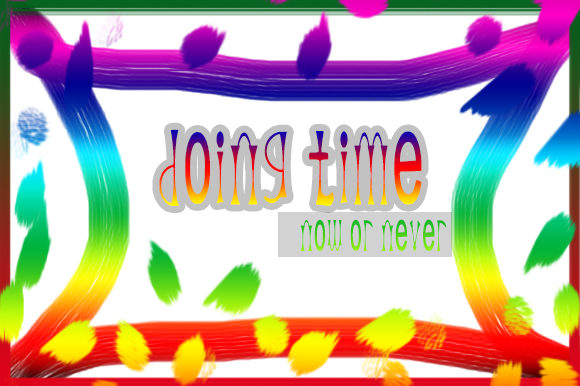
Let’s get funky! Groovy Font: Bringing Back the Iconic Style of the 70s!
Are you ready to add a dash of retro flair to your designs? Look no further than the Groovy Font! This fun and funky typeface is a blast from the past, transporting us back to the iconic style of the 1970s. In this article, we’ll dive into the world of Groovy Font, exploring its history, characteristics, and uses. Whether you’re a designer, crafter, or simply a fan of retro aesthetics, you’ll love the vibe of this far-out font.
A Brief History of Groovy Font
The Groovy Font is a modern interpretation of the classic typography of the 1970s. During this era, fonts were bold, colorful, and playful, reflecting the era’s carefree and experimental spirit. The Groovy Font pays homage to this iconic style, with its chunky letters, curvaceous lines, and funky flair.
Designers and typographers of the 1970s were known for pushing the boundaries of typography, experimenting with new shapes, colors, and textures. The result was a distinctive look that defined the era’s visual identity. The Groovy Font captures the essence of this creative explosion, bringing it back to life for a new generation of designers and crafters.
Characteristics of Groovy Font
So, what makes the Groovy Font so groovy? Here are some of its key characteristics:
- Bold and chunky letters: Groovy Font features thick, sturdy letters that demand attention.
- Curvaceous lines: The font’s lines are smooth and curvy, adding a touch of playfulness to any design.
- Funky flair: Groovy Font includes funky swashes and tails that add a dash of whimsy to your text.
- Retro color schemes: The font looks best with bright, bold colors that evoke the spirit of the 1970s.
Uses of Groovy Font
Groovy Font is perfect for designers and crafters who want to add a retro touch to their work. Here are some ideas to get you started:
- Poster design: Use Groovy Font to create eye-catching posters for concerts, festivals, or parties.
- Social media graphics: Add a dash of retro flair to your social media posts with Groovy Font.
- Crafting projects: Use Groovy Font to create fun and funky titles for your scrapbooking, journaling, or card-making projects.
- Branding and packaging: Groovy Font is perfect for brands that want to evoke a retro or vintage vibe.
Tips for Using Groovy Font
Here are some tips to help you get the most out of Groovy Font:
- Experiment with colors: Try out different color combinations to find the perfect retro-inspired look.
- Mix and match: Combine Groovy Font with other fonts for a unique and playful look.
- Don’t be afraid to get creative: Groovy Font is all about having fun, so don’t be afraid to experiment and try new things!
Groovy Font is a fun and funky typeface that’s sure to bring a smile to your face. With its bold letters, curvaceous lines, and funky flair, it’s the perfect addition to any design or crafting project. Whether you’re a seasoned designer or a crafty beginner, Groovy Font is a great way to add a dash of retro flair to your work. So why not give it a try and see what kind of groovy creations you can come up with?
So, let’s get funky and bring back the iconic style of the 1970s with Groovy Font!